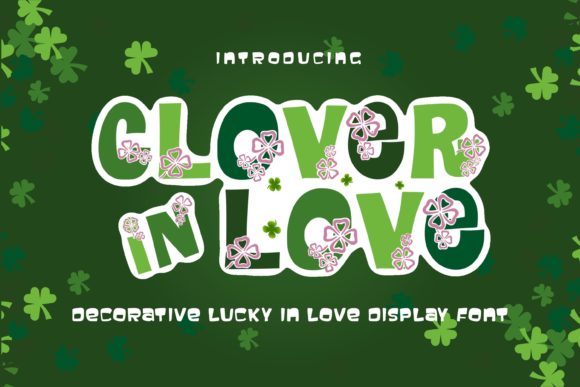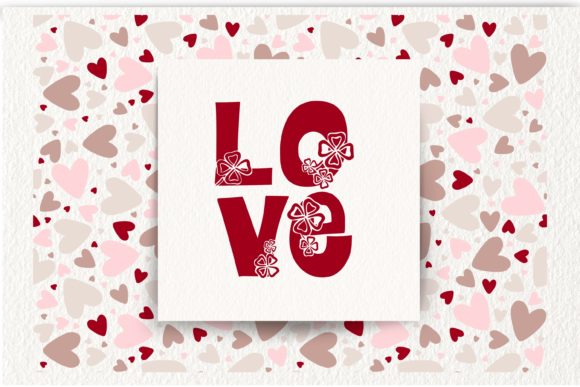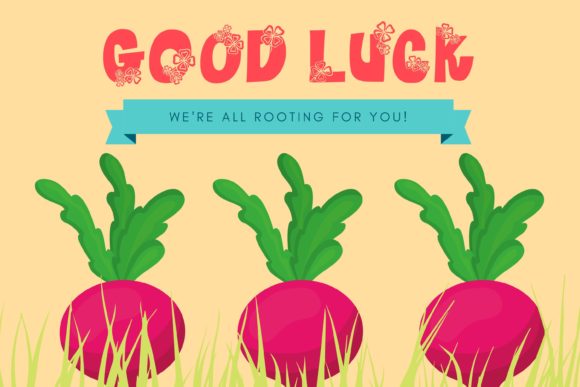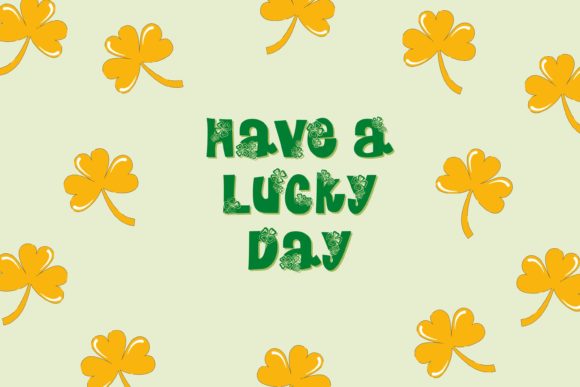
Clover in Love Font
About the Clover in Love Font
Crafted with precision, the Clover in Love Font is ready to bring your ideas to life. Clover in Love is a cool and neat decorative font. Add it confidently to your favorite creations and let yourself be amazed by the outcome generated.
Clover in Love’s decorative style is ideal for headlines, short text blocks on posters or packaging, and branding elements requiring a touch of playful sophistication. Its ornate details, however, make it unsuitable for body text or UI elements where legibility is paramount; long paragraphs set in this font would be difficult to read.
The font possesses a friendly, slightly whimsical personality. To balance this, consider pairing it with a clean sans-serif like Montserrat for a modern contrast, or a classic serif such as Garamond for a more timeless feel. A simple geometric sans-serif could also work well, providing a strong counterpoint to Clover in Love’s organic forms.
For brands aiming for a lighthearted yet refined image – perhaps a bakery, boutique, or children’s product line – Clover in Love offers a charming and memorable visual identity.
Clover in Love Font Usage Examples
Clover in Love Font Example